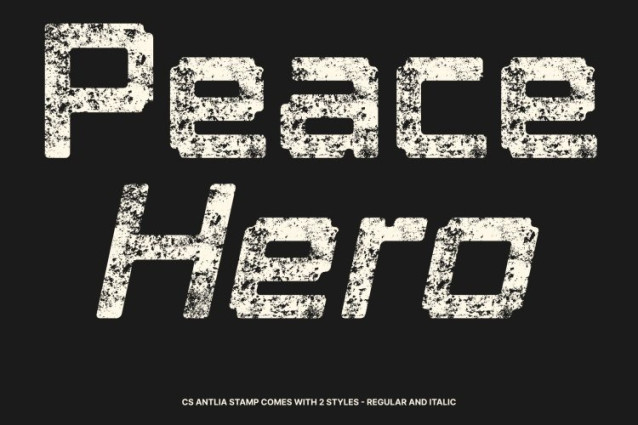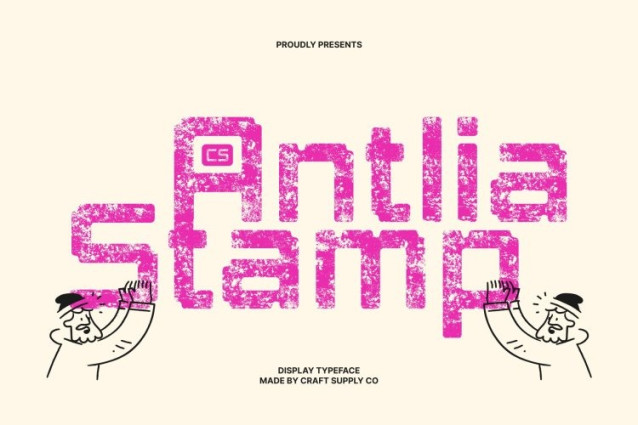
CS Antlia Stamp Font
CS Antlia Stamp Font This is a modern display font built around sharp lines and precise geometric shapes that express a strong techno aesthetic. Its clean and structured letterforms deliver a futuristic impression, making the font ideal for designs that demand clarity, innovation, and a cutting-edge visual presence.
High-Tech Appearance with Vintage Stamp Character
While its foundation is modern and futuristic, the stamp effect adds a layer of aged character to the font. Subtle distressed textures and worn details introduce a vintage and old-design feel, creating an interesting contrast between advanced technology and classic printed aesthetics. This artistic texture gives the font depth and visual uniqueness.
Flexible and Adaptable Across Creative Contexts
This font remains highly versatile across different design applications. From technology-focused branding and digital promotions to posters and experimental layouts, the font adapts seamlessly. Its geometric clarity ensures readability, while the stamped texture adds personality and visual interest in any context.
Elevate Designs with a Fusion of Past and Future
Perfect for projects that want to blend technological progress with artistic expression, this font elevates visuals through its fusion of futuristic structure and vintage texture. It’s an excellent choice for designers seeking a distinctive techno font that feels bold, innovative, and enriched with timeless character.